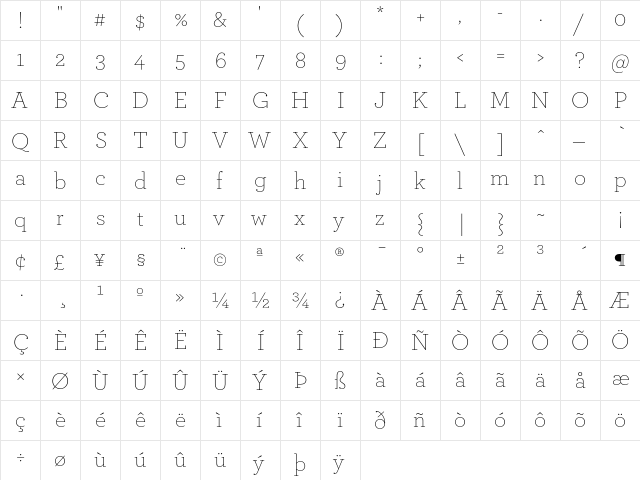
Archer Extra Light
| Foundry | Hoefler & Frere-Jones |
| Designer | Hoefler & Frere-Jones |
Design Context for Archer Typeface
Archer is a composed and adaptable typeface that performs quietly and consistently across a wide range of design contexts. Its slender proportions lend an understated elegance to any composition.